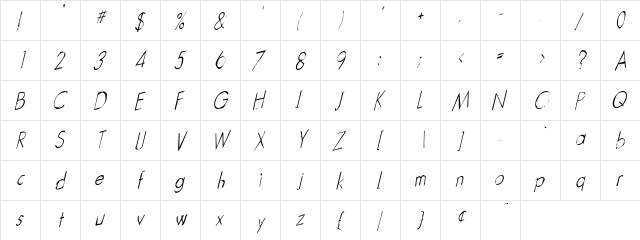
Garbage Italic
Design Context for Garbage Typeface
Garbage takes a measured approach to typography — its balanced proportions and neutral character make it a reliable workhorse for both digital and print work. The slanted form adds forward momentum and visual energy.
Pro Tip: Use Garbage for emphasis, pull quotes, and subheadings where its slanted energy can add rhythm to the layout.